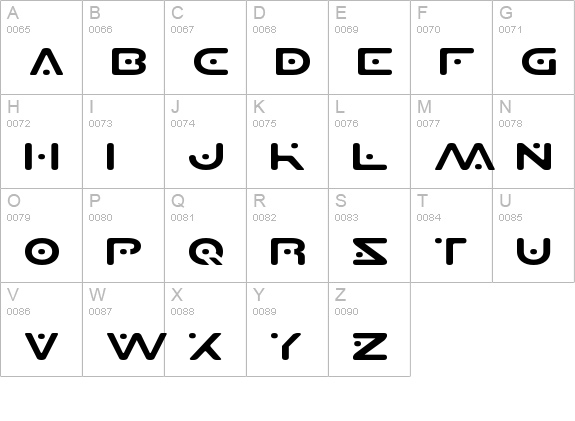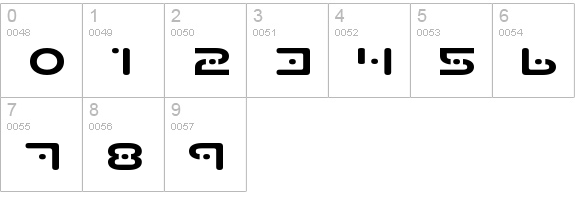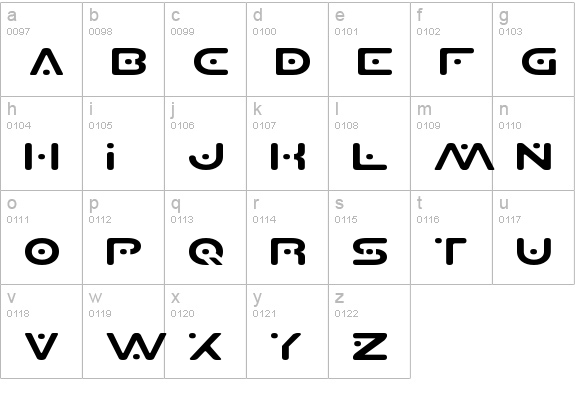
Planet S Expanded is a distinctive, extended-width variant in the Planet typeface family \xE2\x80\x94 well suited to design and typography projects.
Introducing Planet S Expanded font, a stunning typeface that will take your design projects to extraordinary heights. With its sleek and modern aesthetic, this font is the perfect choice for those seeking a bold and captivating look. Planet S Expanded font offers an expanded version of the popular Planet S font, providing even more versatility and creativity. Its elongated letterforms exude elegance and sophistication, making it ideal for a wide range of applications, including headlines, logos, posters, and more. One of the most remarkable features of Planet S Expanded font is that it is available for free. Yes, you read that right! This exceptional font can be freely downloaded at FontsMarket.com, allowing designers, creatives, and enthusiasts to unleash their imagination without breaking the bank. With Planet S Expanded font, your designs will effortlessly stand out from the crowd. Its seamless legibility ensures that your message is conveyed with clarity and impact. The clean lines and balanced proportions of each character add a touch of professionalism, making it suitable for both digital and print projects. Whether you're creating a captivating advertisement, designing a modern website, or crafting an eye-catching packaging design, Planet S Expanded font will elevate your work to new levels of excellence. Its extensive character set includes uppercase and lowercase letters, numerals, punctuation marks, and a variety of special characters, providing you with endless creative possibilities. Download Planet S Expanded font for free at FontsMarket.com and embark on a design journey that will leave a lasting impression. Unleash your creativity and let this font become your ultimate tool for creating remarkable and impactful designs.